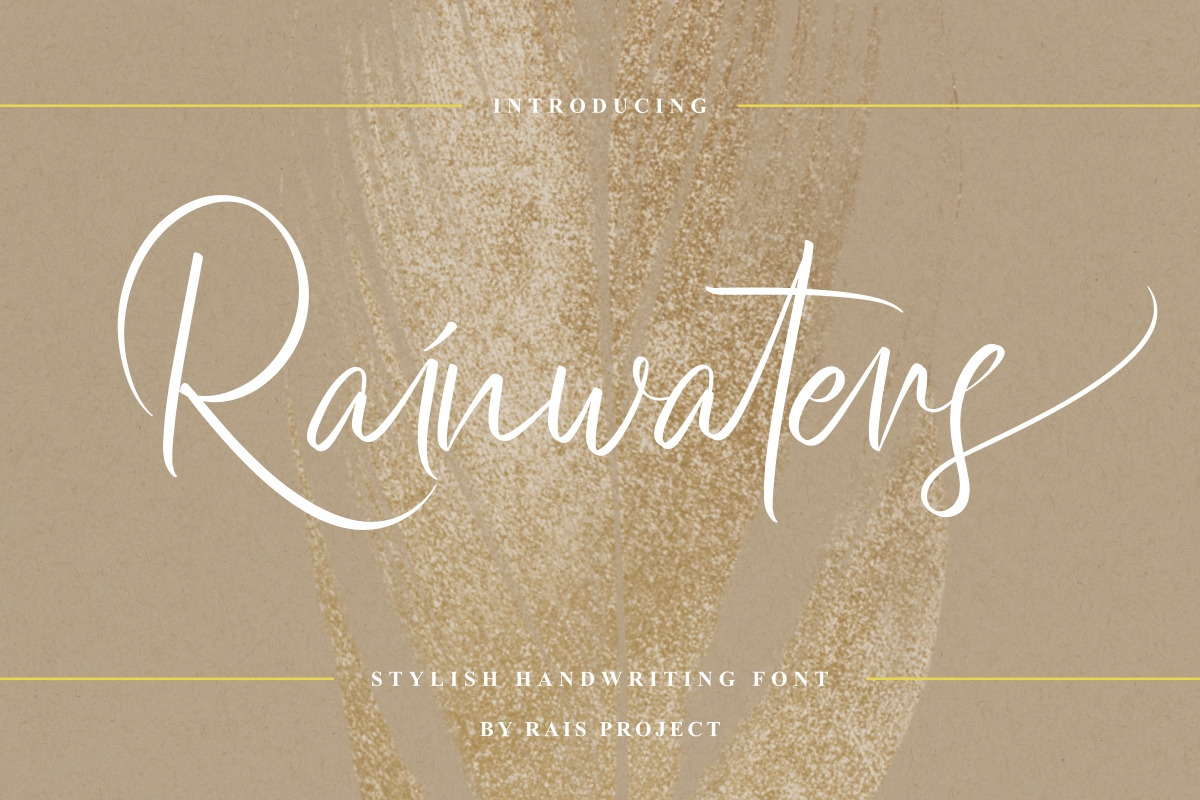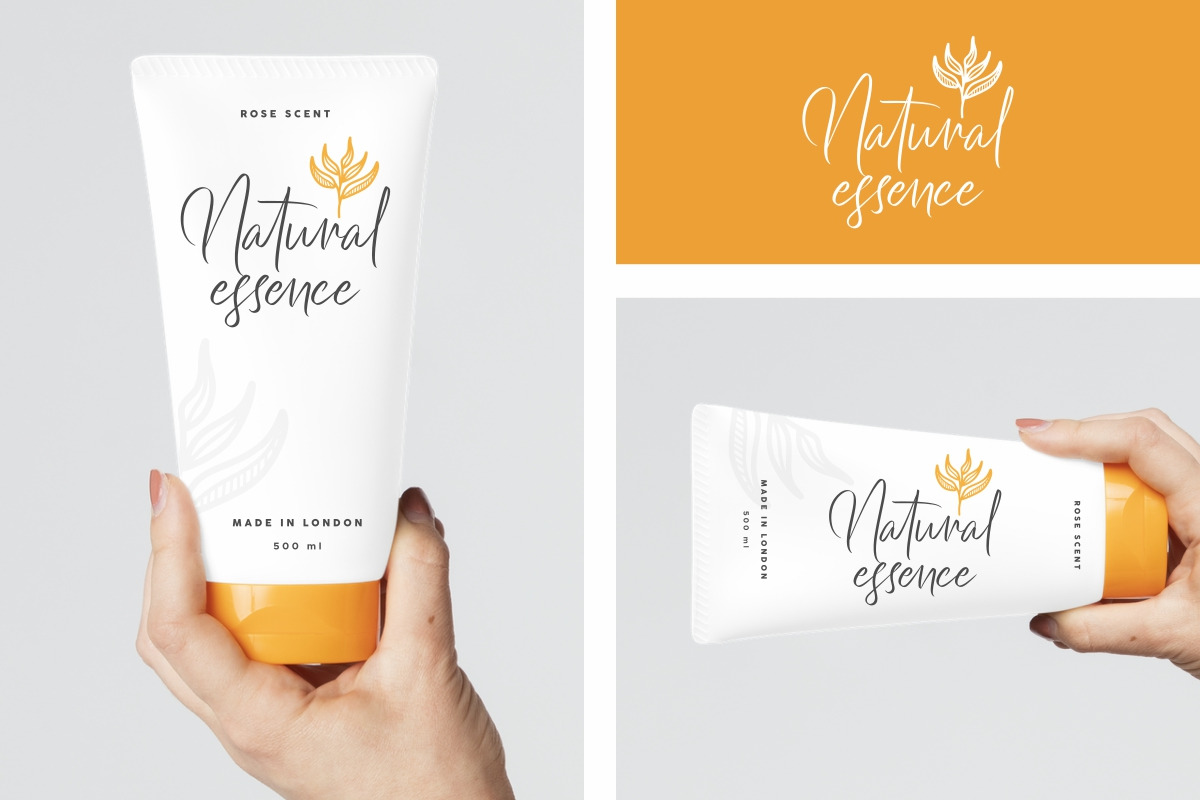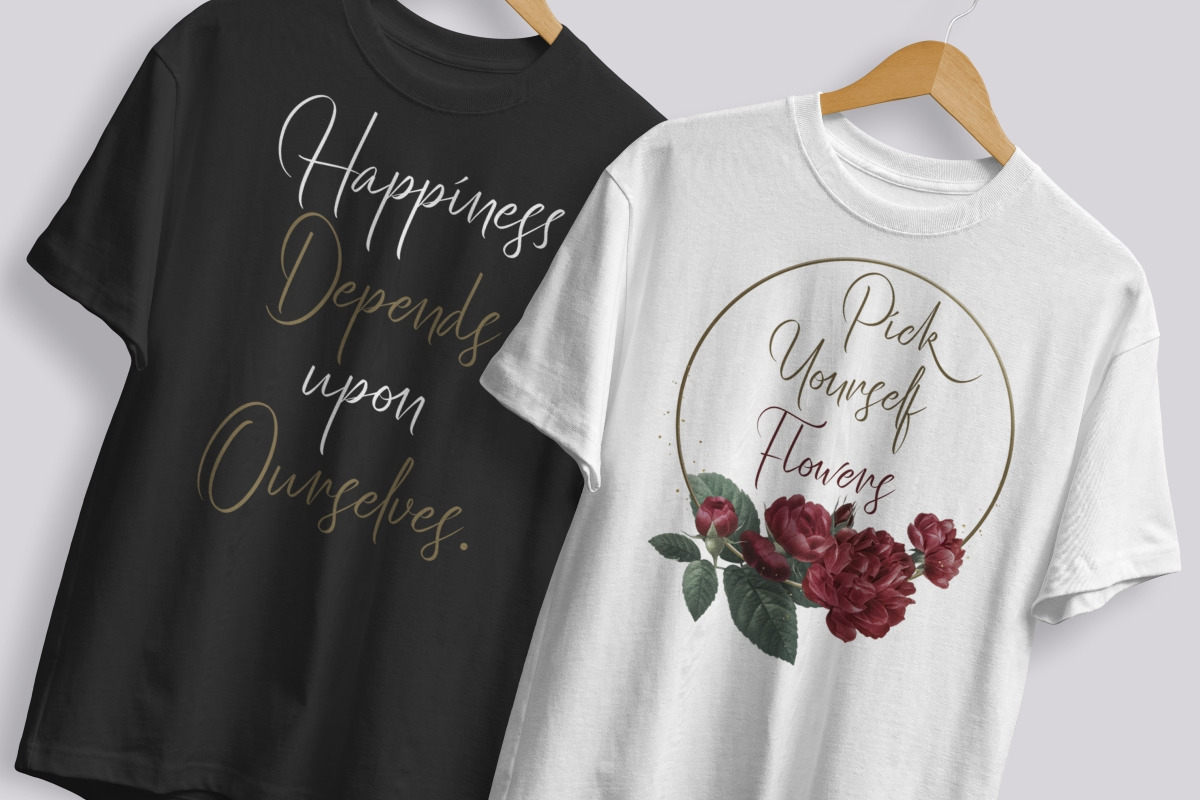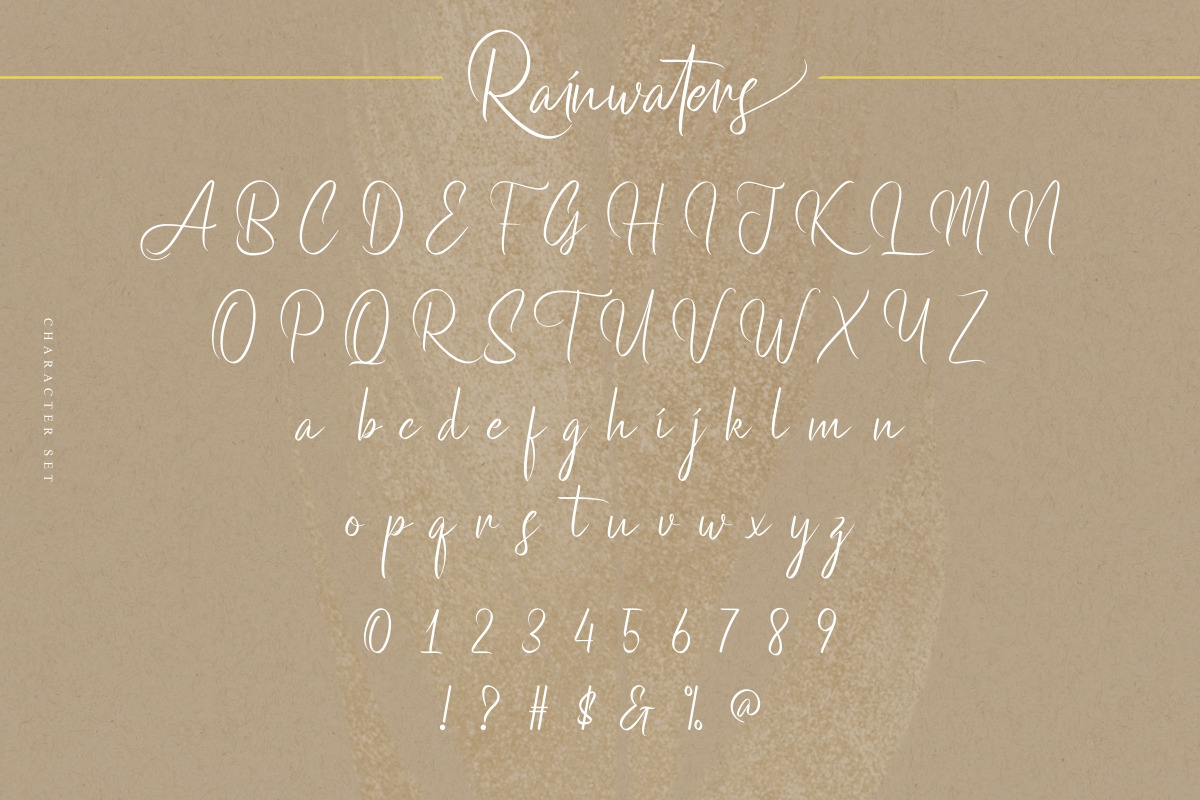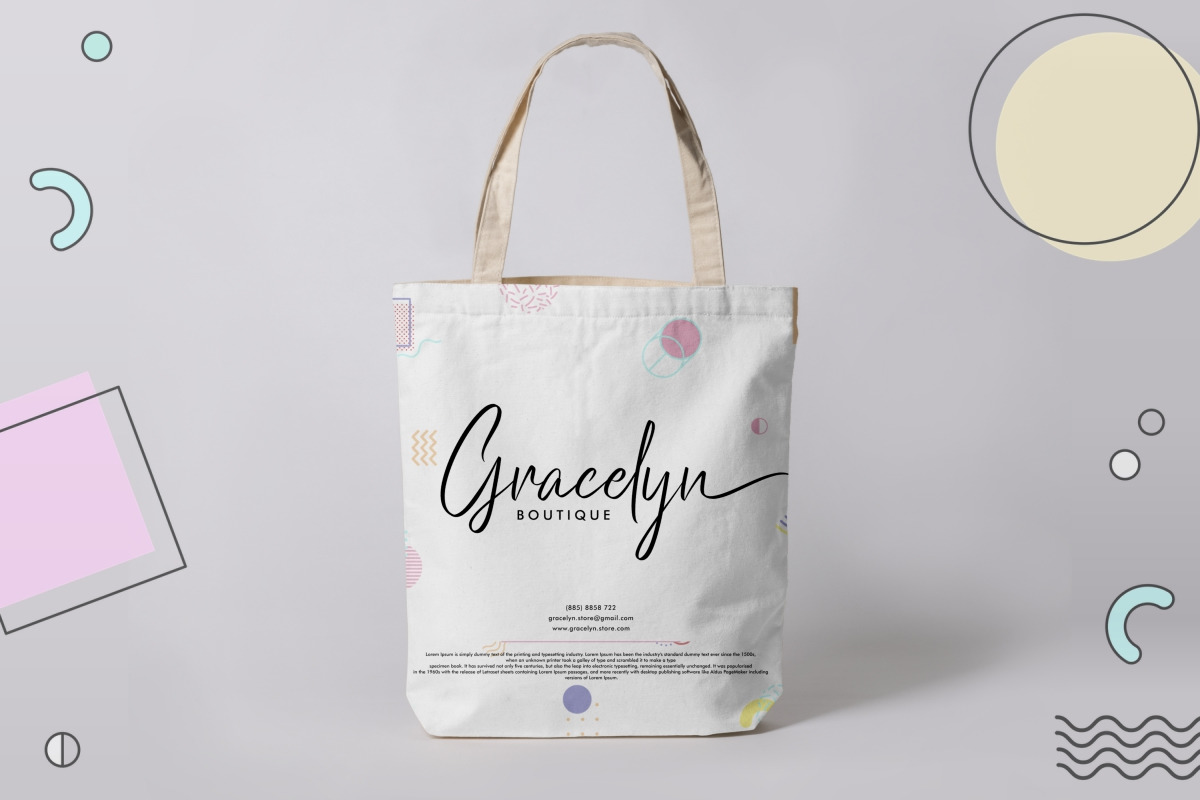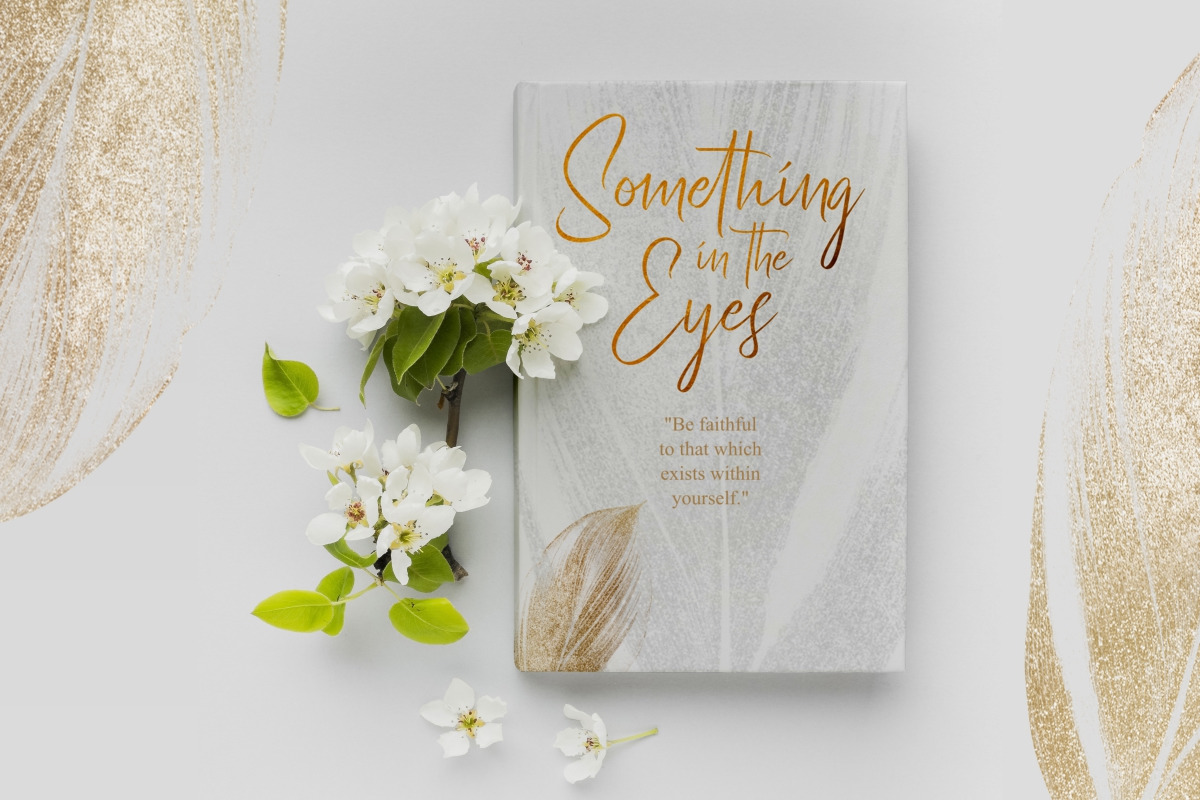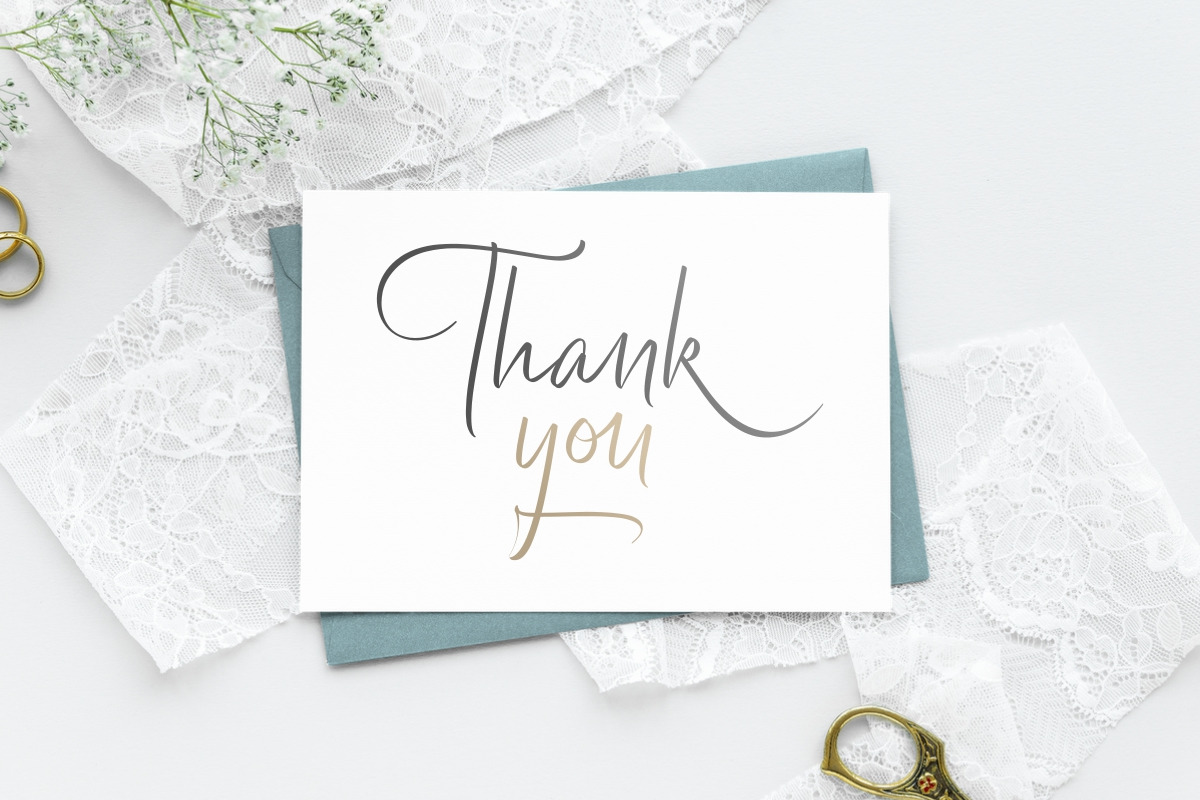
Rainwaters Handwriting Font
Rainwaters is a classy handwriting script font with sophisticated calligraphic style. It will be stunning for any your special projects including : games, promotion, events, branding, advertising, magazine, apps, signage, invitation, stationery, social media posts, product packaging, product designs, label, comic, watermark or and any projects that need calligraphy handwriting style.